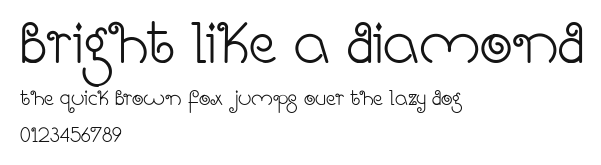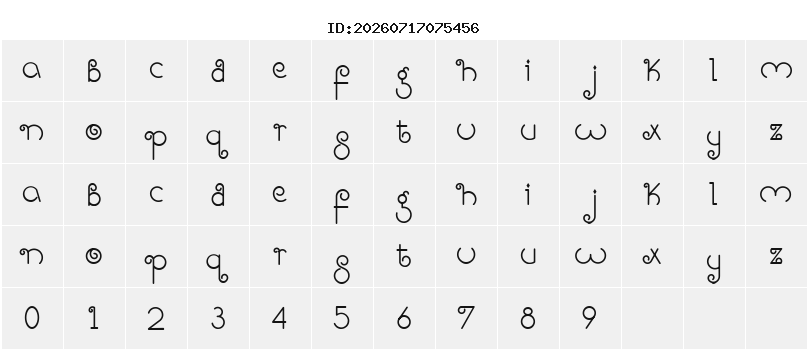
Bright Like A Diamond Preview
• Font Name: Bright Like A Diamond
• Full Font Name: Bright Like A Diamond
• Designer: Misti's Fonts (Misti Hammers)
About Bright Like A Diamond.ttf
Bright Like A Diamond.ttf is a modern, elegant sans-serif font designed for ultimate readability and visual harmony. Perfect for branding, headlines, web design, and print materials.